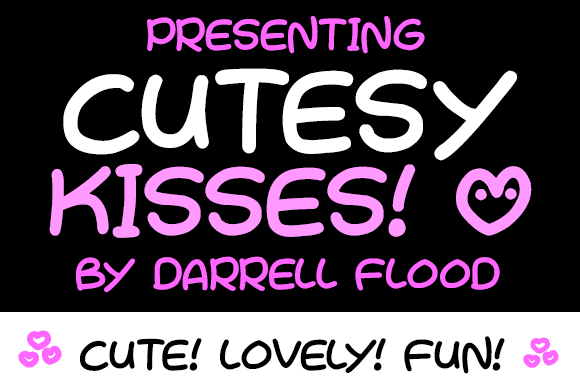
Cutesy Kisses Font
About Cutesy Kisses Font
Cutesy Kisses is a casual, hand drawn font in a thick marker style. Perfect for love letters and hugging themes!